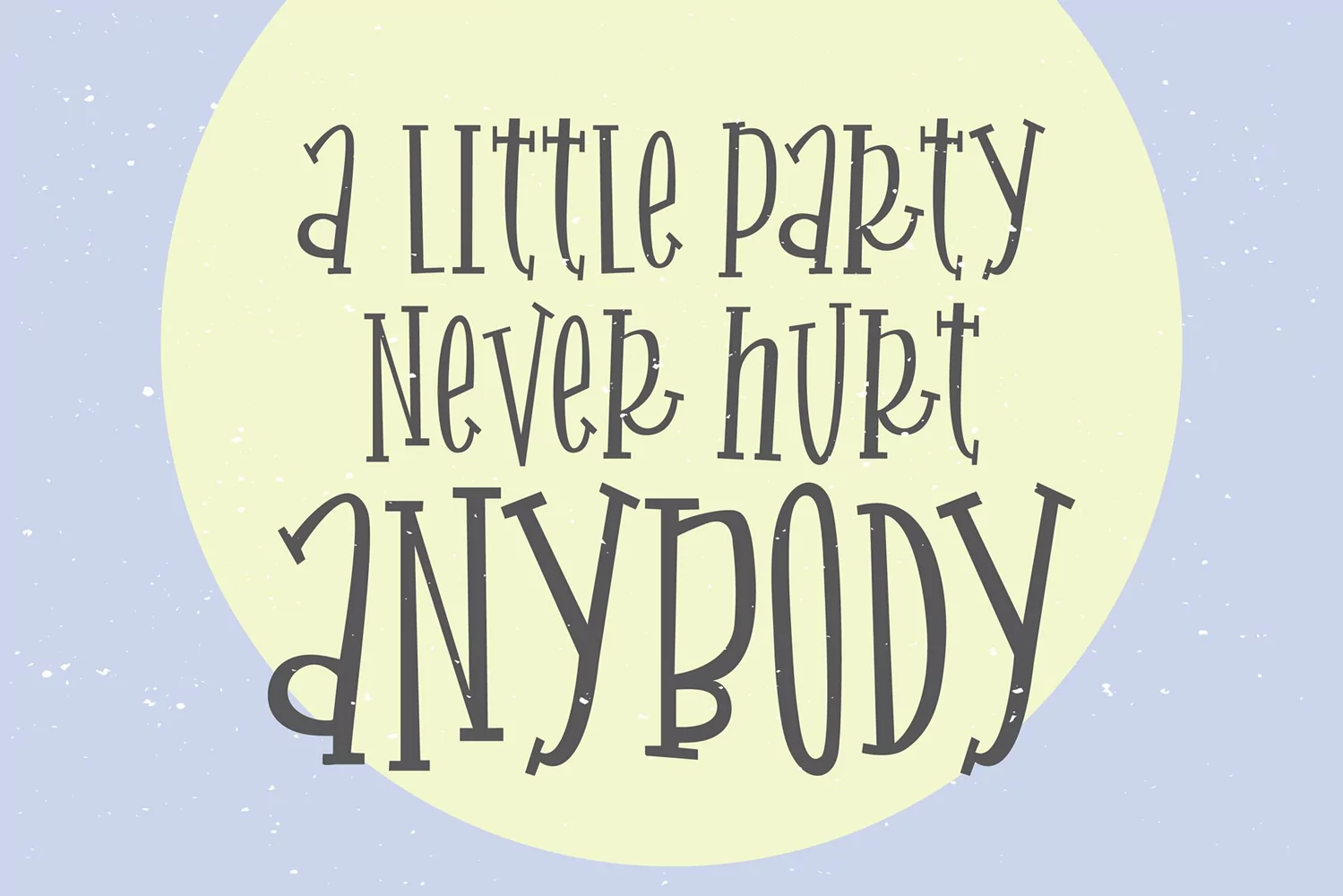
MARDE GRASE a Stylish Serif Font
"MardeGras" hand lettered serif installable font.
{ A typographic font hand lettered with love by Dixie Type Co. }
MardeGras is a fun hand lettered serif font. It is girly and fun. Use it for parties, crafts, invitations and more! This is the perfect serif font with a lot of personality to have on hand.
Font includes: one-case glyphs, numbers, and basic punctuation.